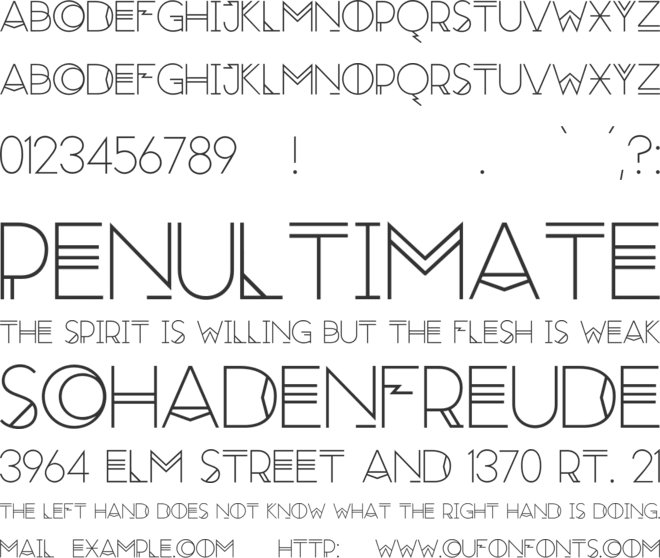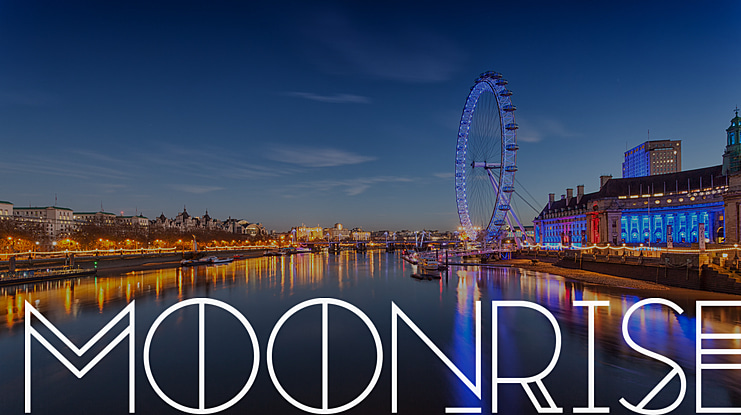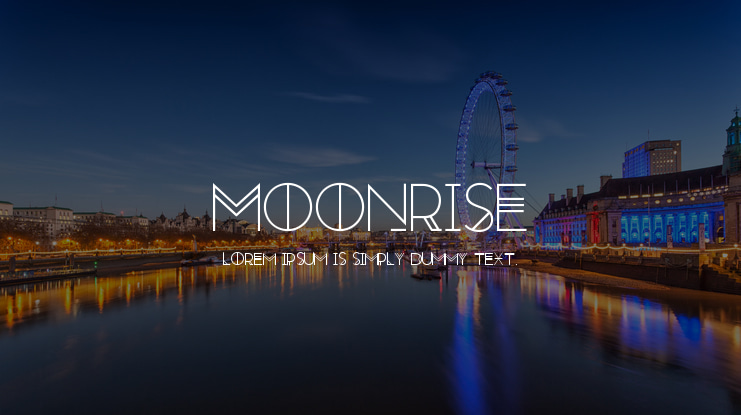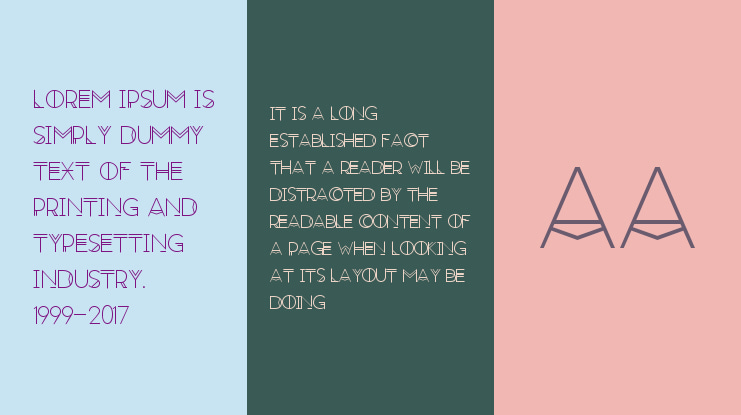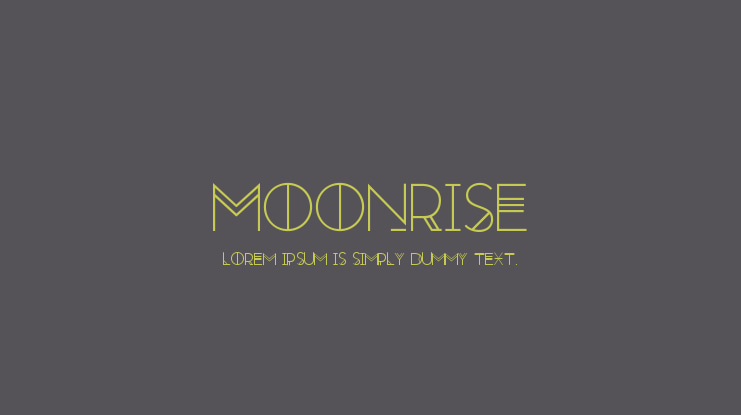
Moonrise Font Family
Moonrise is an experimental multi-layered display font that takes inspiration from art deco forms as well as more contemporary sources. Included are three font files, letters, numbers, and accents for most western European languages.